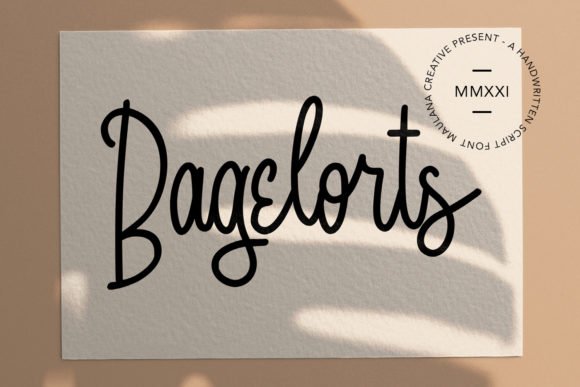
Introduction to Bagelorts Font
Bagelorts is a sweet and organic handwritten font.
This gentle font will look gorgeous on a variety of design ideas It will add a joyful and romantic touch to each of your projects.
Key Features of Bagelorts Font